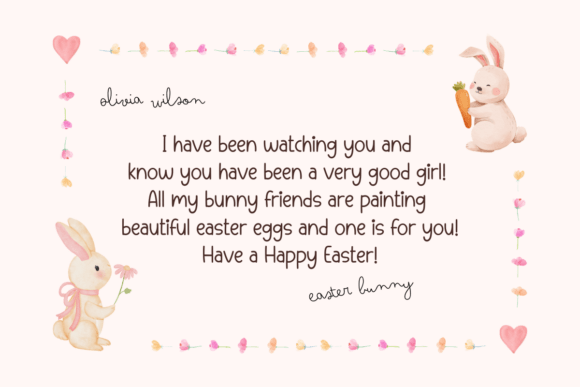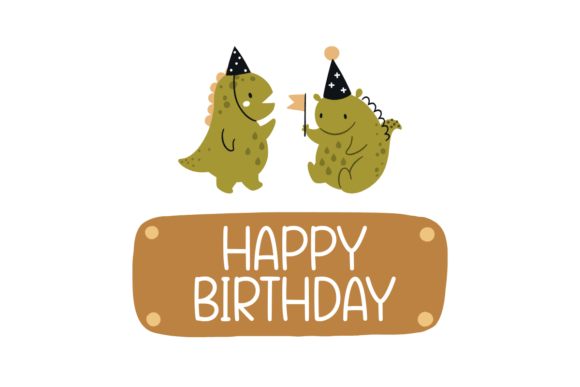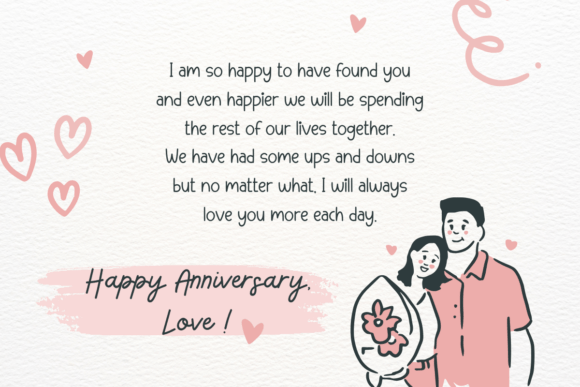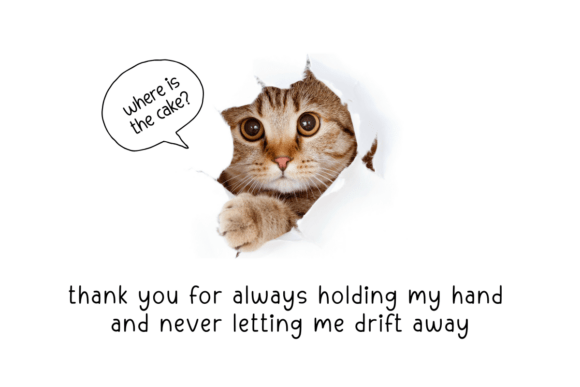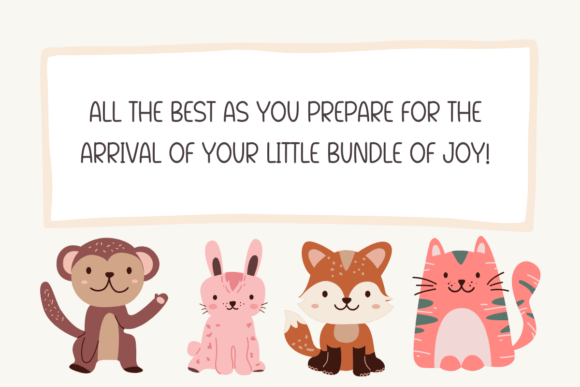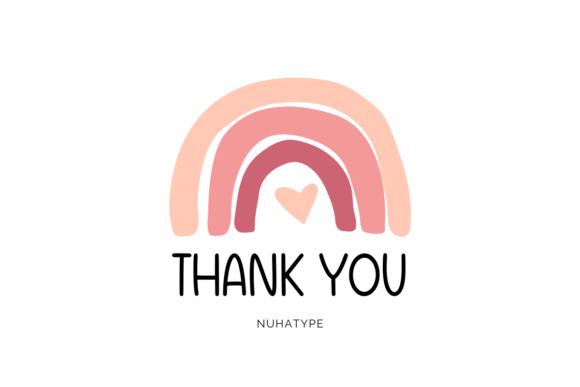
The Charm of Gingermilk Font: A Designer’s New Best Friend
I’ll never forget the time I was working on a client’s planner project, and I just couldn’t find the right font to bring the whole design together. The client wanted something simple, yet charming; something that would make their planner stand out without overwhelming the content. That’s when I stumbled upon the Gingermilk font. It was like a breath of fresh air – a cute, minimalist, thin handwritten font that perfectly captured the essence of natural handwriting.
An Honest Review of Gingermilk Font
- ✨ Its simplicity and elegance make it perfect for a wide range of design projects, from planners and journals to stickers and labels.
- ✅ The font’s thin strokes and delicate feel add a touch of sophistication to any design.
- 💫 It’s highly versatile and can be used for both digital and print projects.
- 🎨 The font’s subtle imperfections give it a human touch, making it feel like a personal, handwritten note.
While Gingermilk font is amazing, it’s not perfect. Here are a few things to keep in mind:
- ⚠️ The font’s thin strokes can be a bit tricky to read at small sizes, so it’s best to use it at larger sizes or with careful consideration.
- 🤔 Some of the characters, like the lowercase ‘q’ and ‘x’, can be a bit ambiguous, but this is also part of the font’s charm.
The Backstory of Gingermilk Font
Gingermilk font was designed with the intention of capturing the simplicity and charm of natural handwriting. The designer, inspired by the delicate lines and imperfections of handwritten text, created a font that would bring a touch of warmth and personality to any design. The result is a font that’s both elegant and approachable, perfect for a wide range of creative projects.
| Font Name | Gingermilk Font |
| Author | Nuhatype |
Q: Is Gingermilk font suitable for body text?
A: While Gingermilk font is beautiful, it’s best used for headings or short paragraphs. Its thin strokes can be a bit tricky to read at small sizes, making it less suitable for body text.